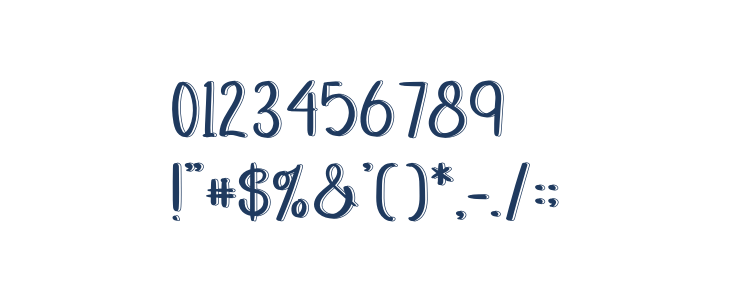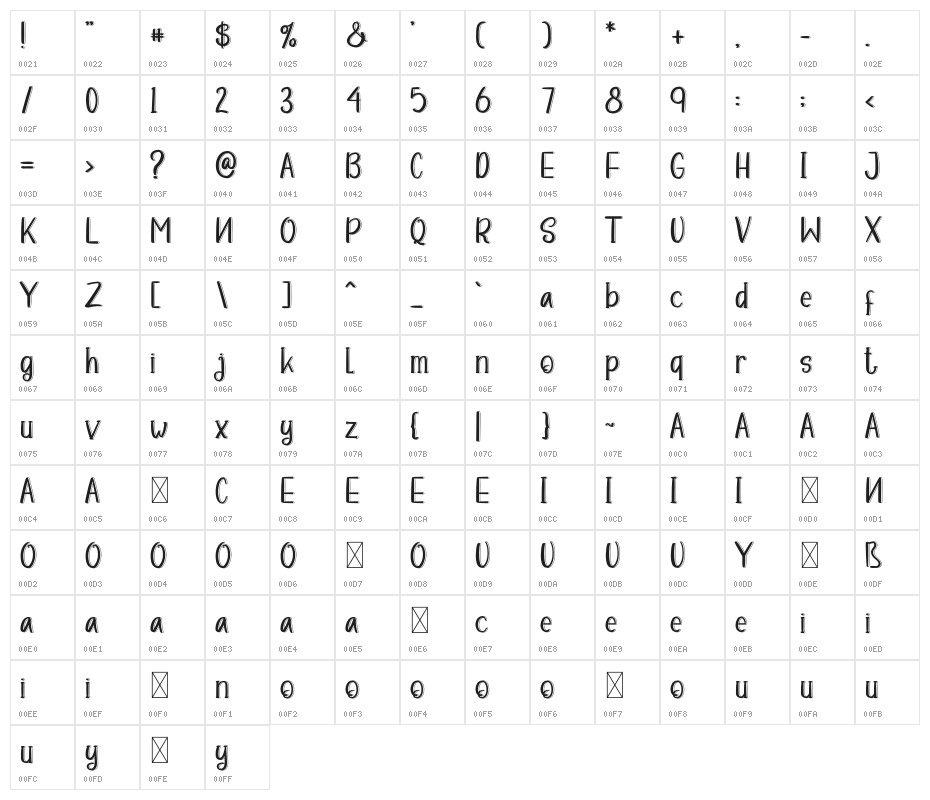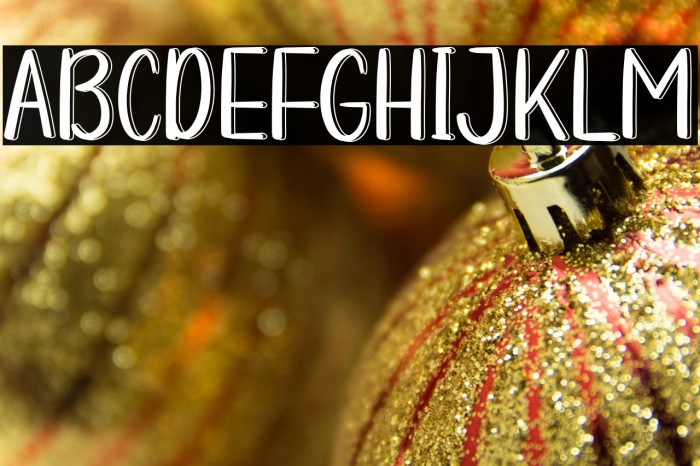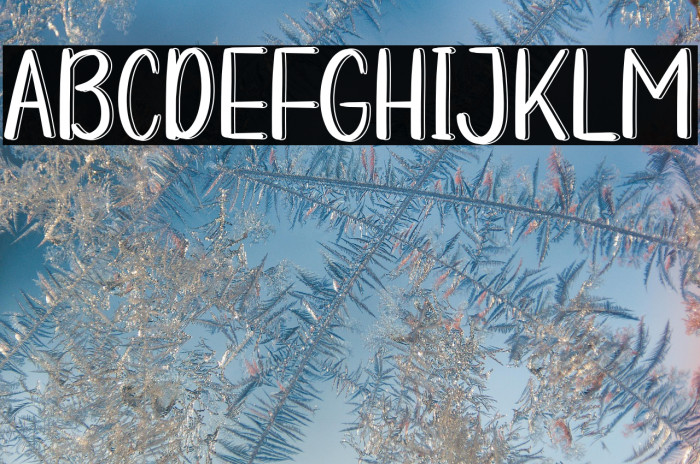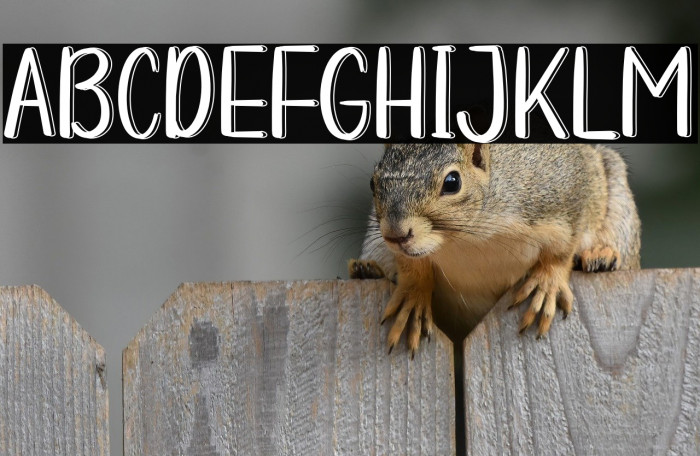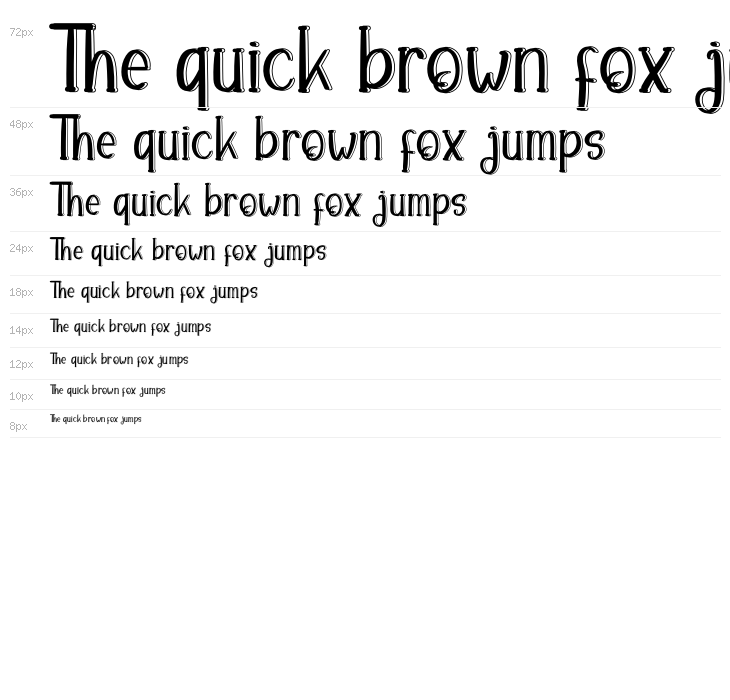
COMICS CARTOON Font
COMICS CARTOON Description
This playful and whimsical font features bold, rounded characters with a cartoonish flair. The uppercase and lowercase letters are designed with a consistent stroke width, giving them a uniform appearance. The numbers and special characters maintain the same lively style, making the font suitable for fun and informal contexts. The characters have a slightly exaggerated, hand-drawn look, which adds to their charm and appeal. The font's design is perfect for capturing attention and conveying a sense of humor and creativity.
| Overall Style | Playful, Cartoonish |
| Proposed Projects | Ideal for comic books, children's books, playful branding, and creative posters. |